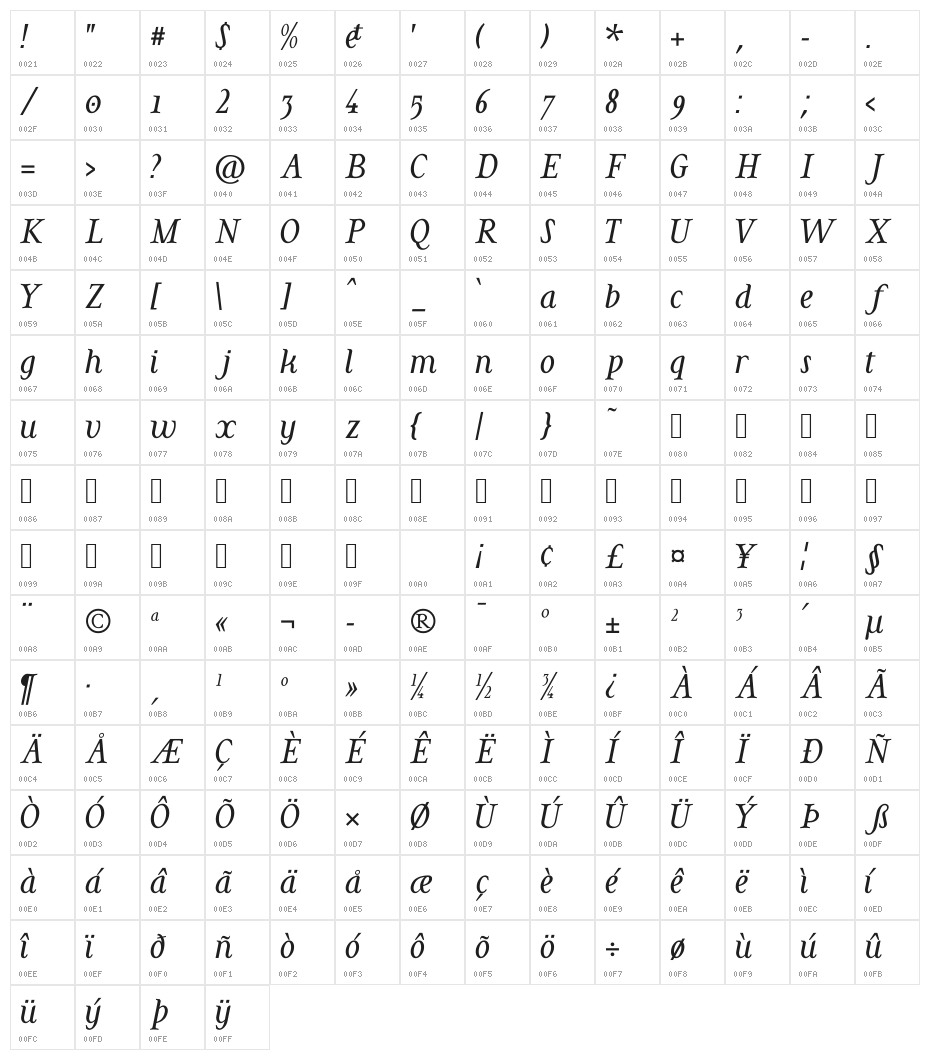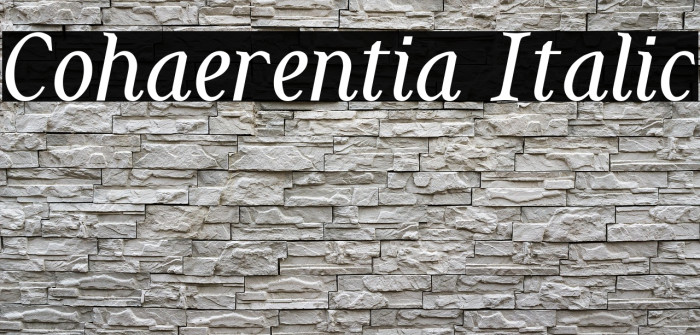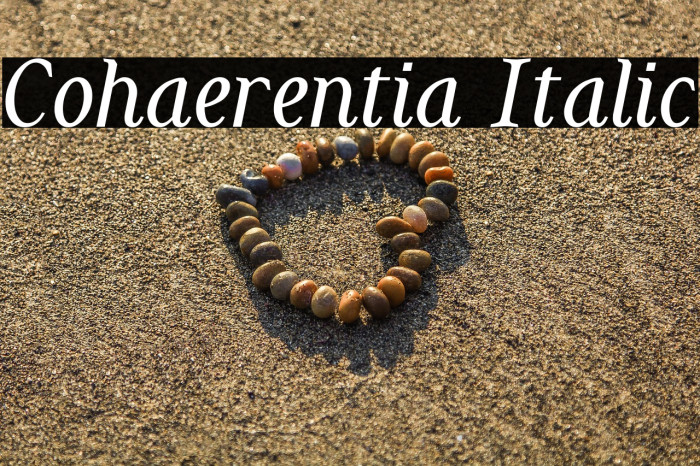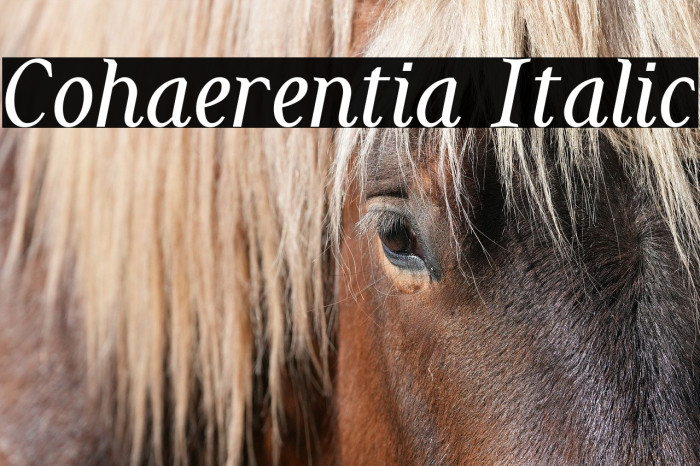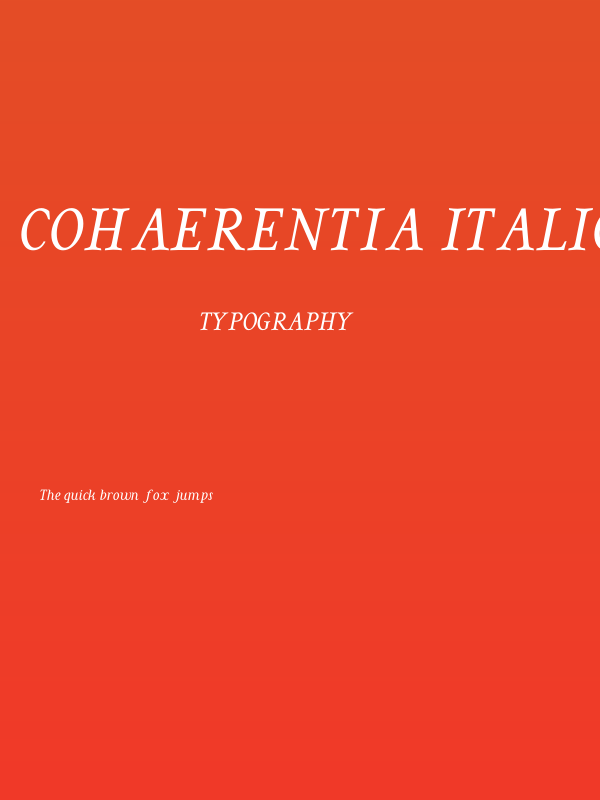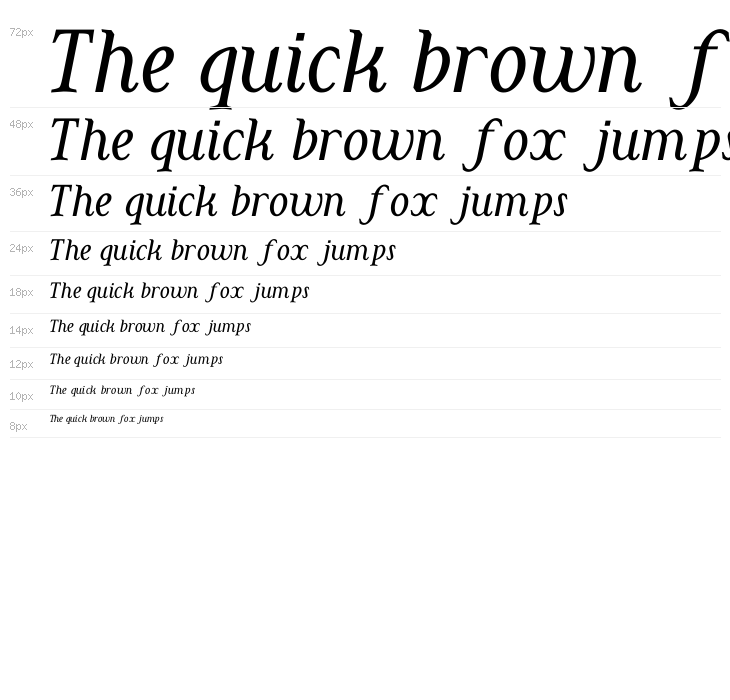
Cohaerentia Italic Font
Cohaerentia Italic Description
This font exhibits a classic italic style with elegant, flowing letterforms that convey a sense of sophistication and grace. The slanted characters are well-proportioned, with a moderate contrast between thick and thin strokes, enhancing readability while maintaining an artistic flair. The uppercase letters are slightly taller than the lowercase, providing a balanced visual hierarchy. The numerals are distinct and clear, matching the overall style of the alphabet. Special characters are thoughtfully designed to complement the main character set, making this font versatile for various applications.
Overall StyleClassic
Use CaseHeadlines, Logos, Invitations
Proposed ProjectsIdeal for projects requiring a touch of elegance, such as wedding invitations, formal event programs, or luxury brand logos.